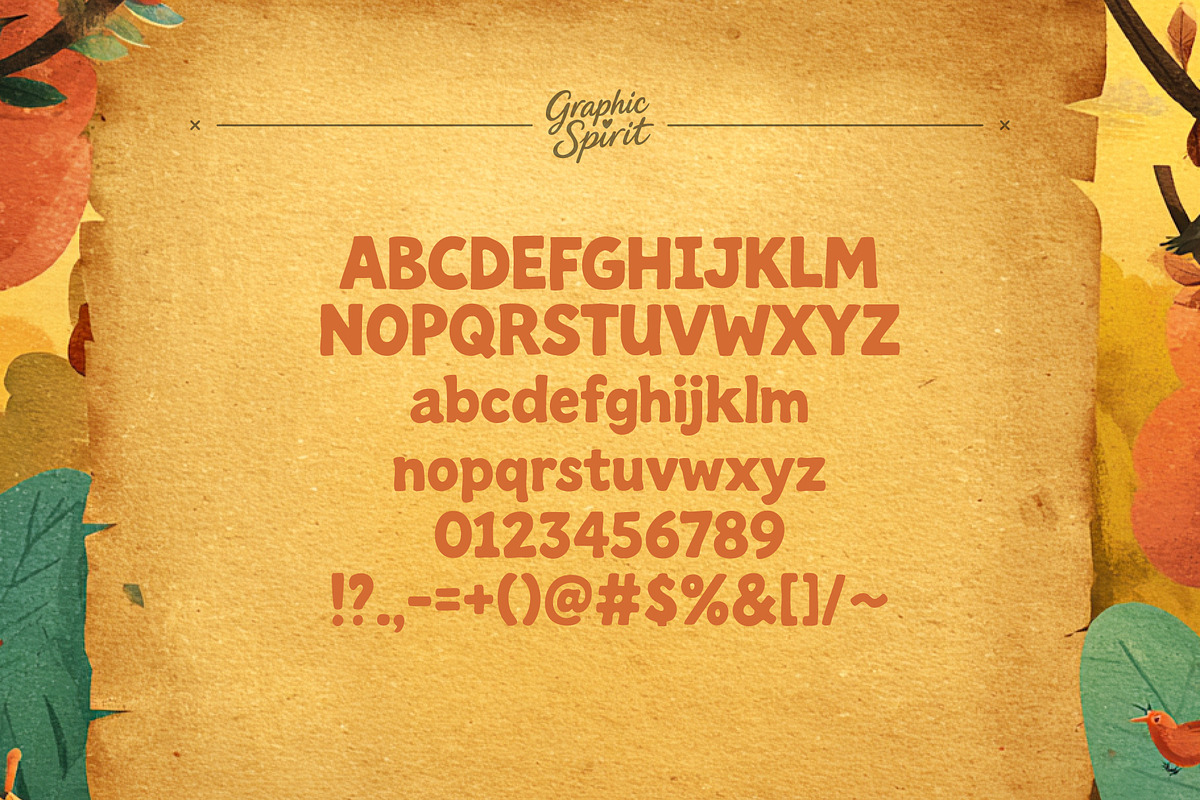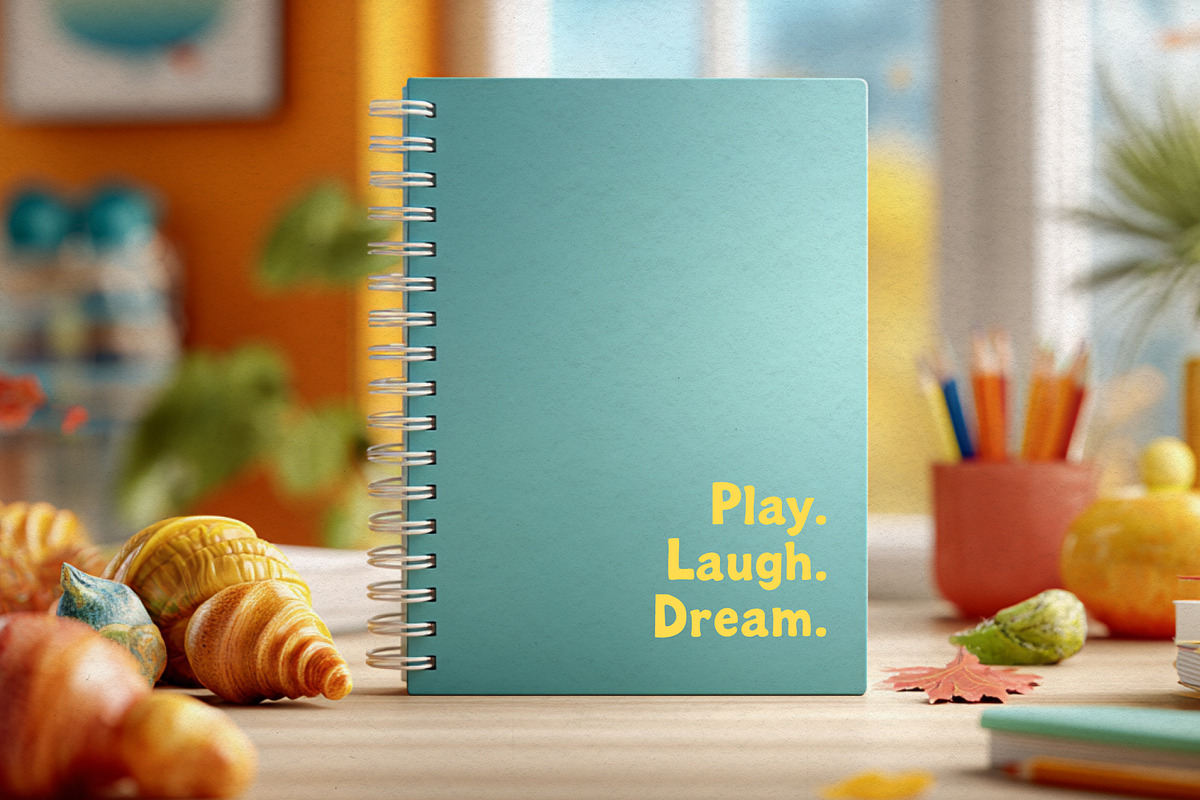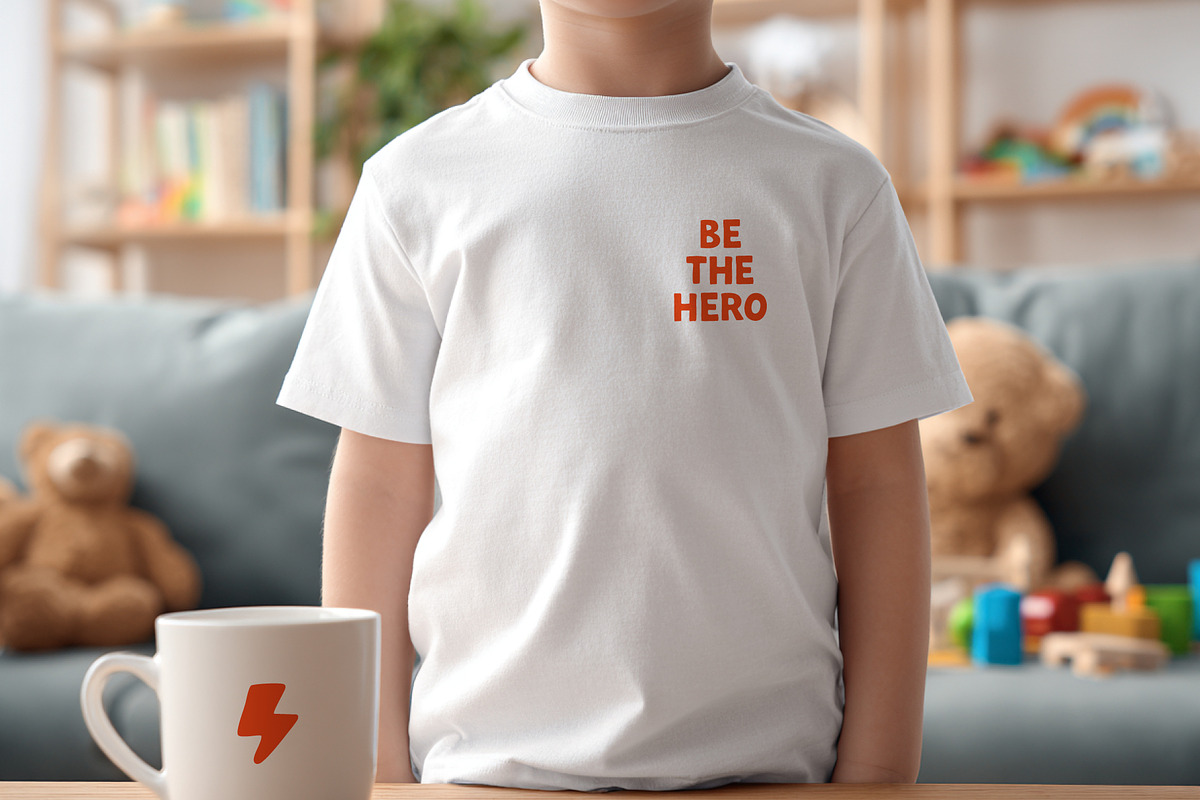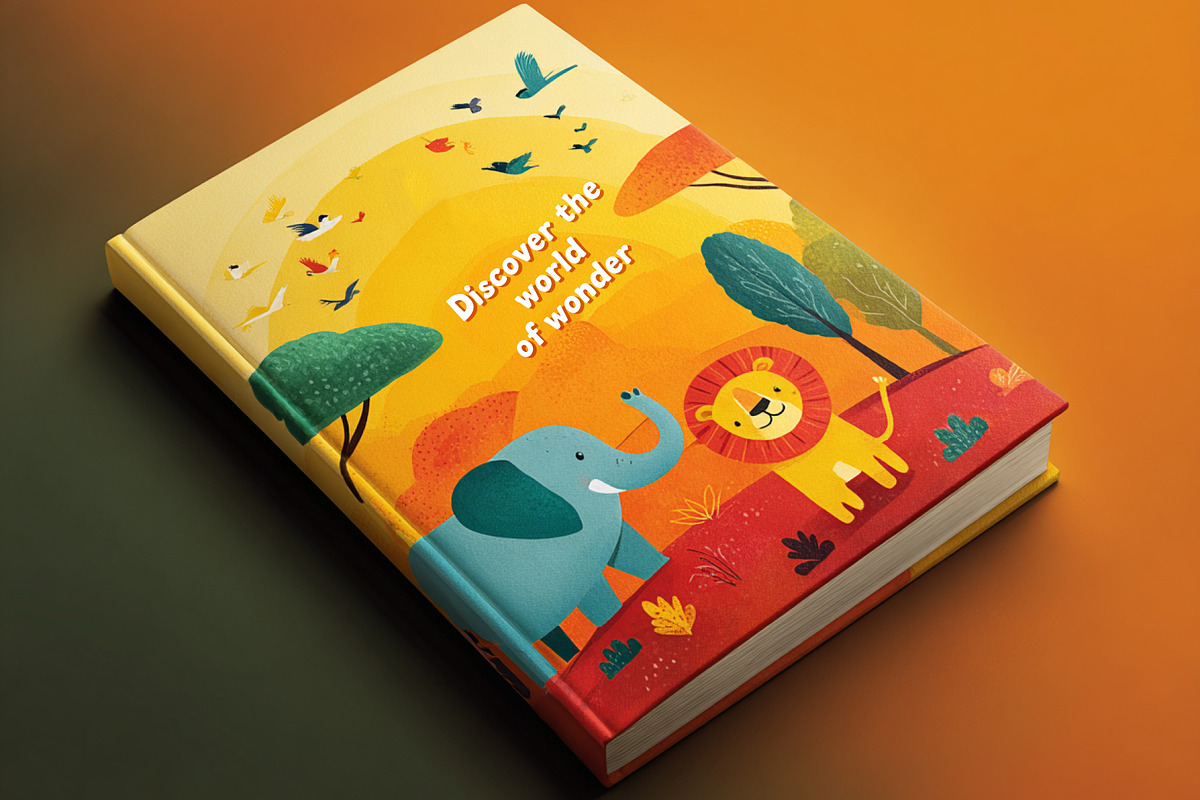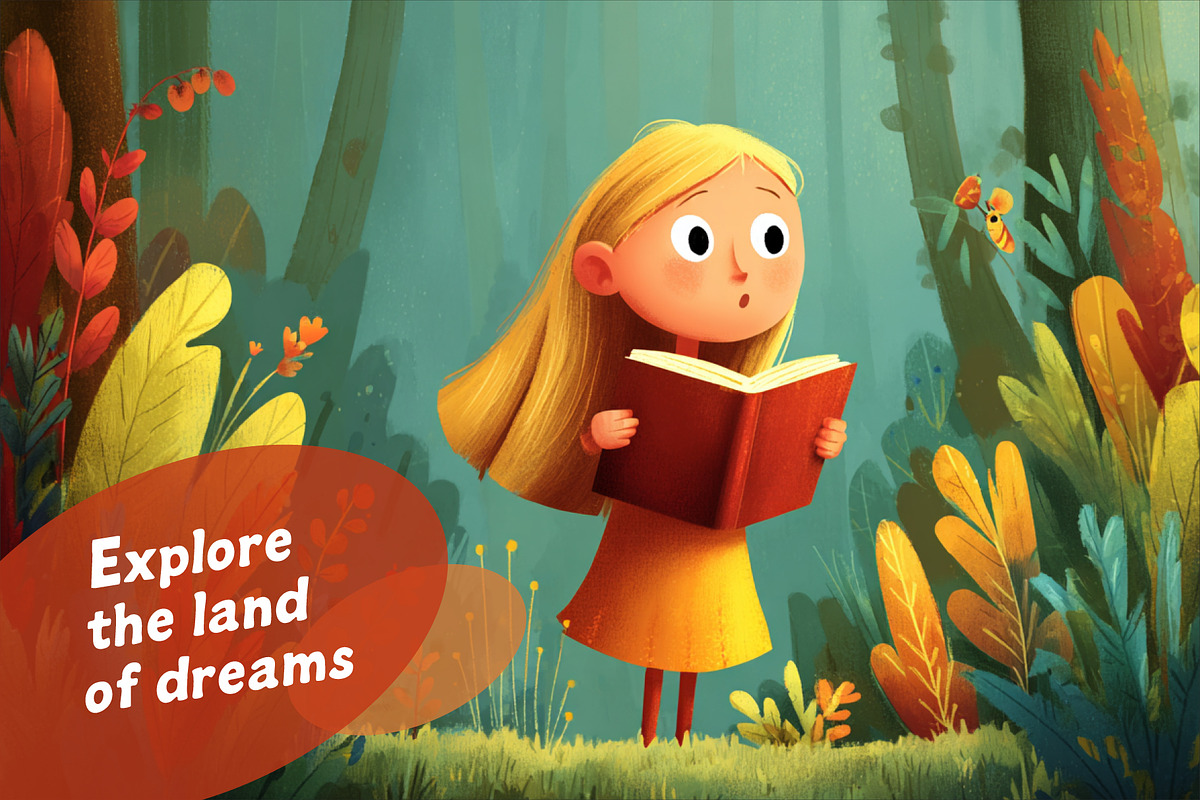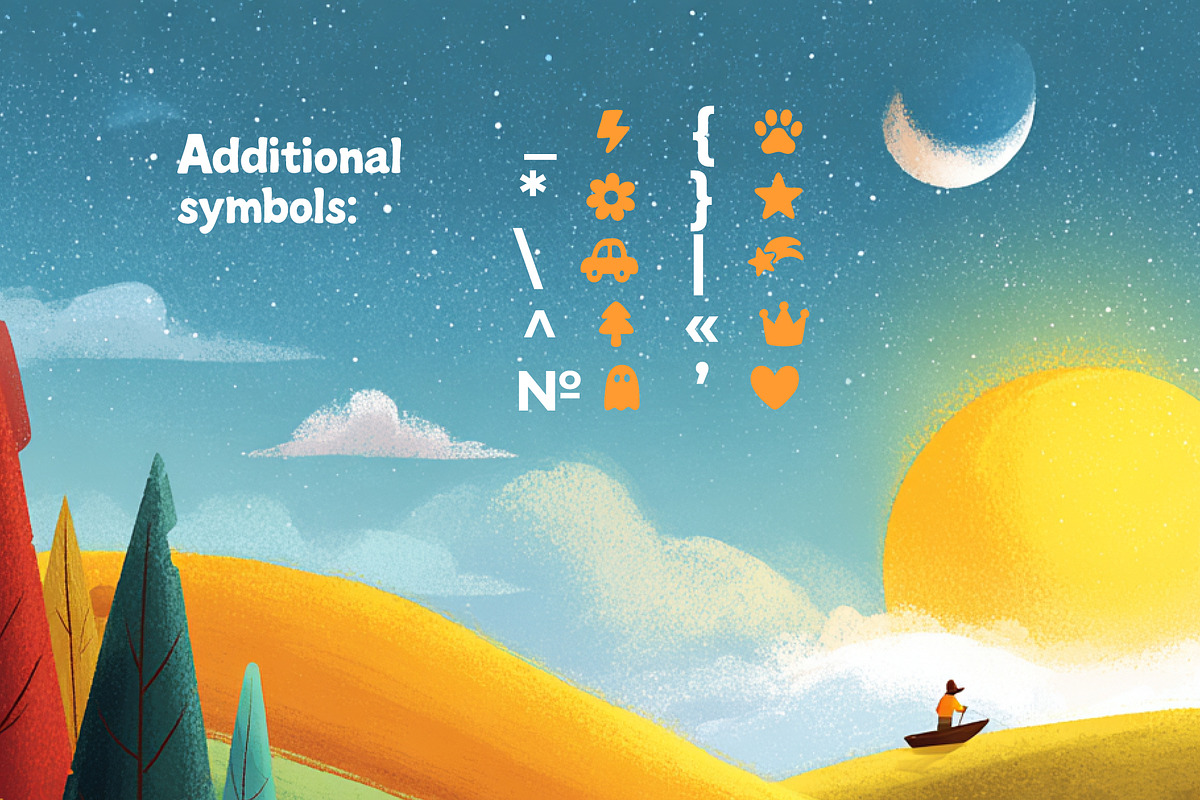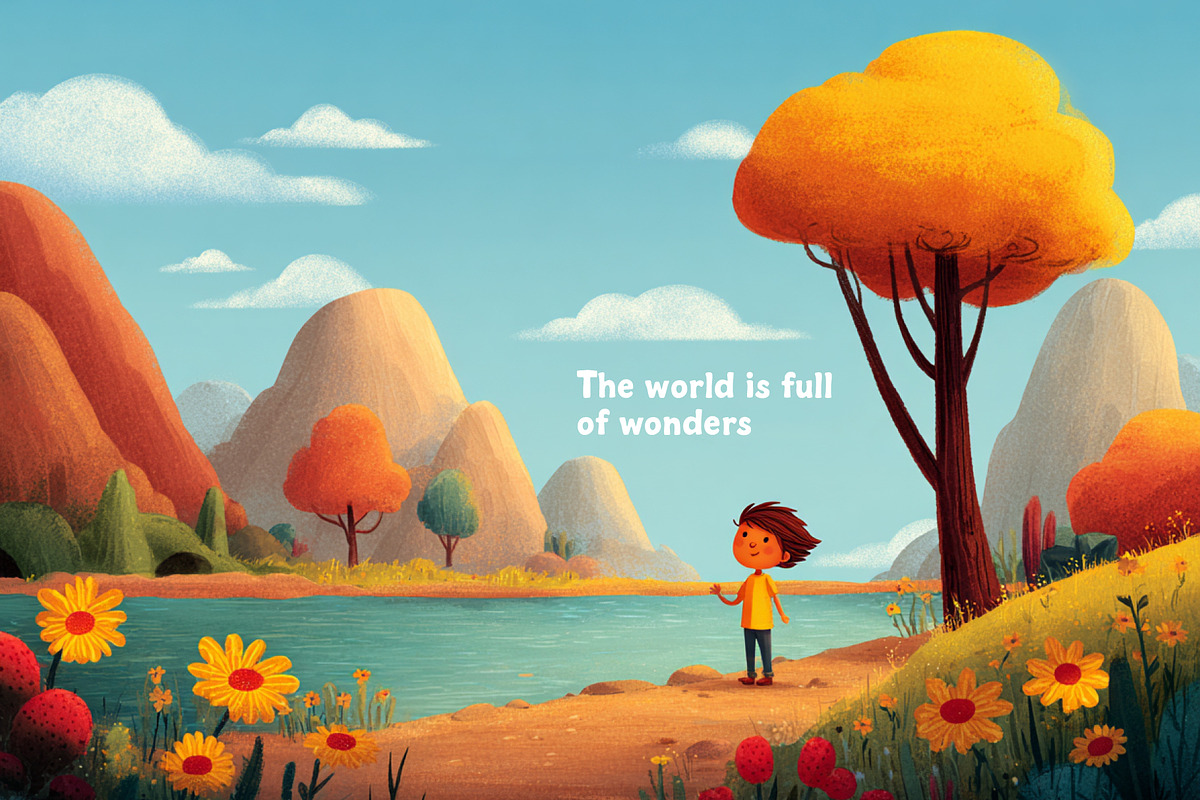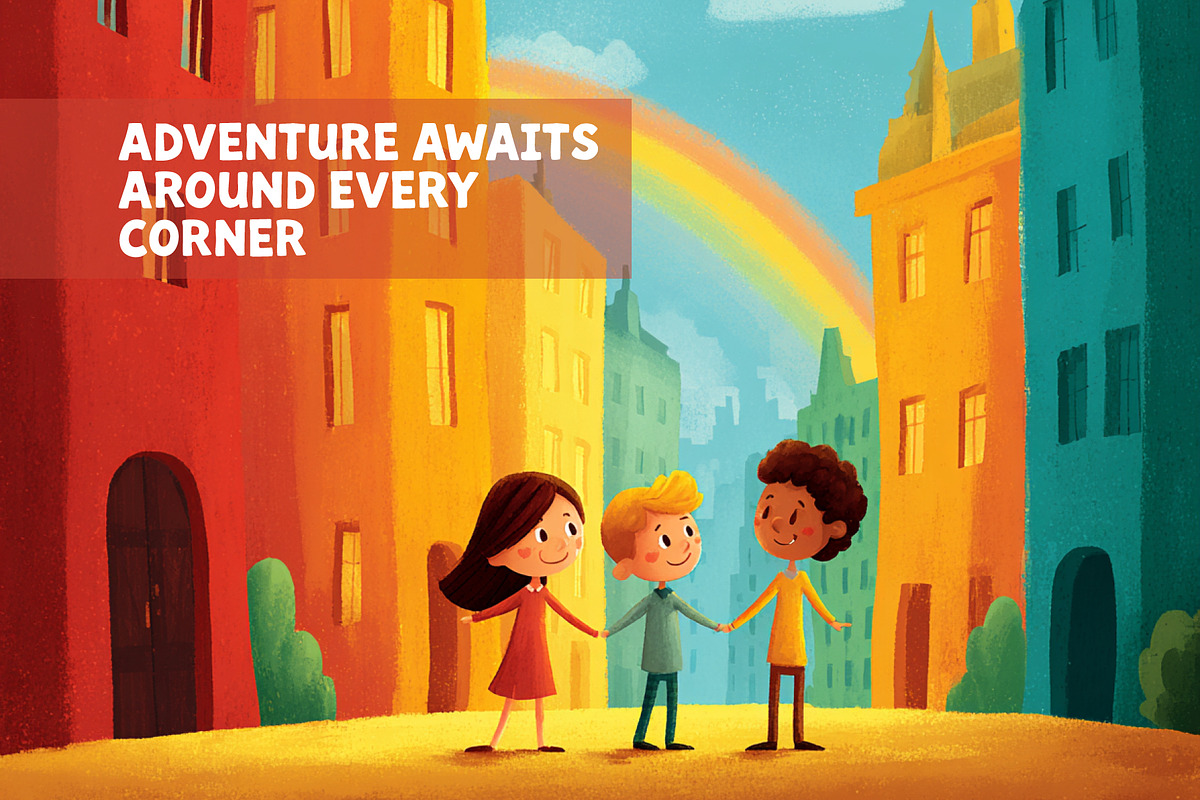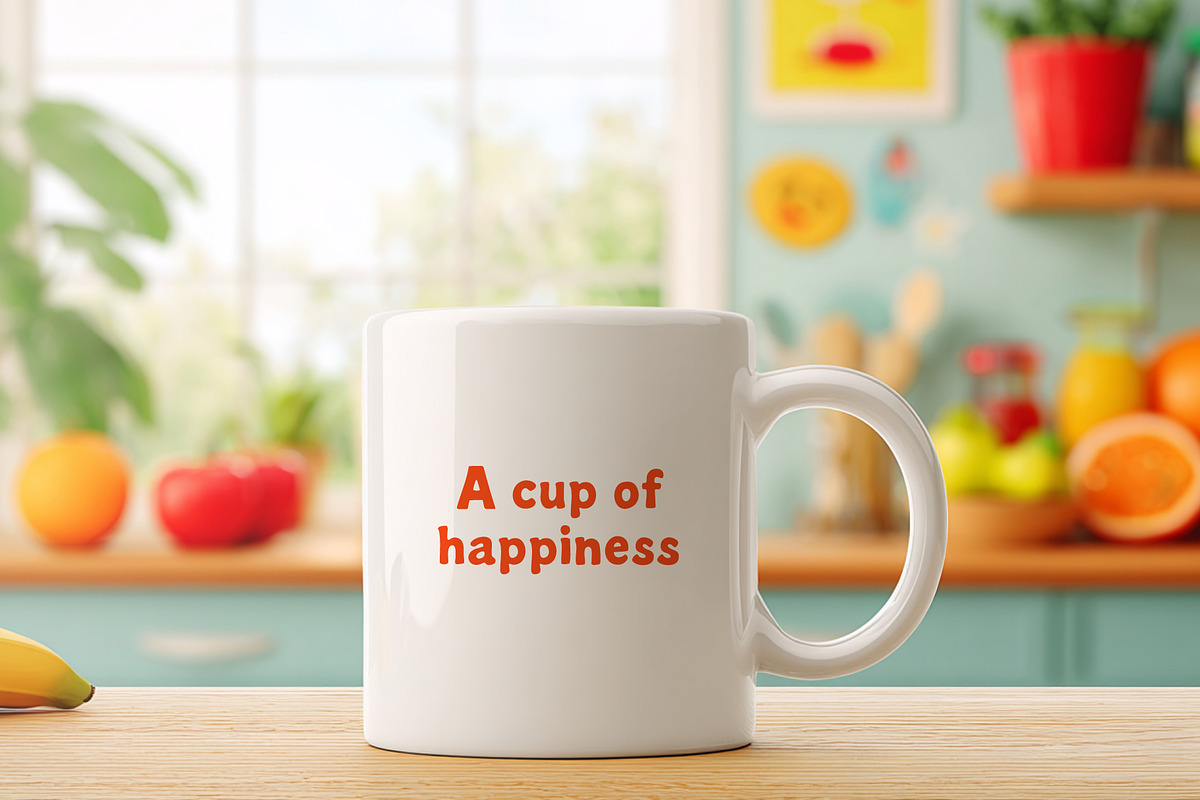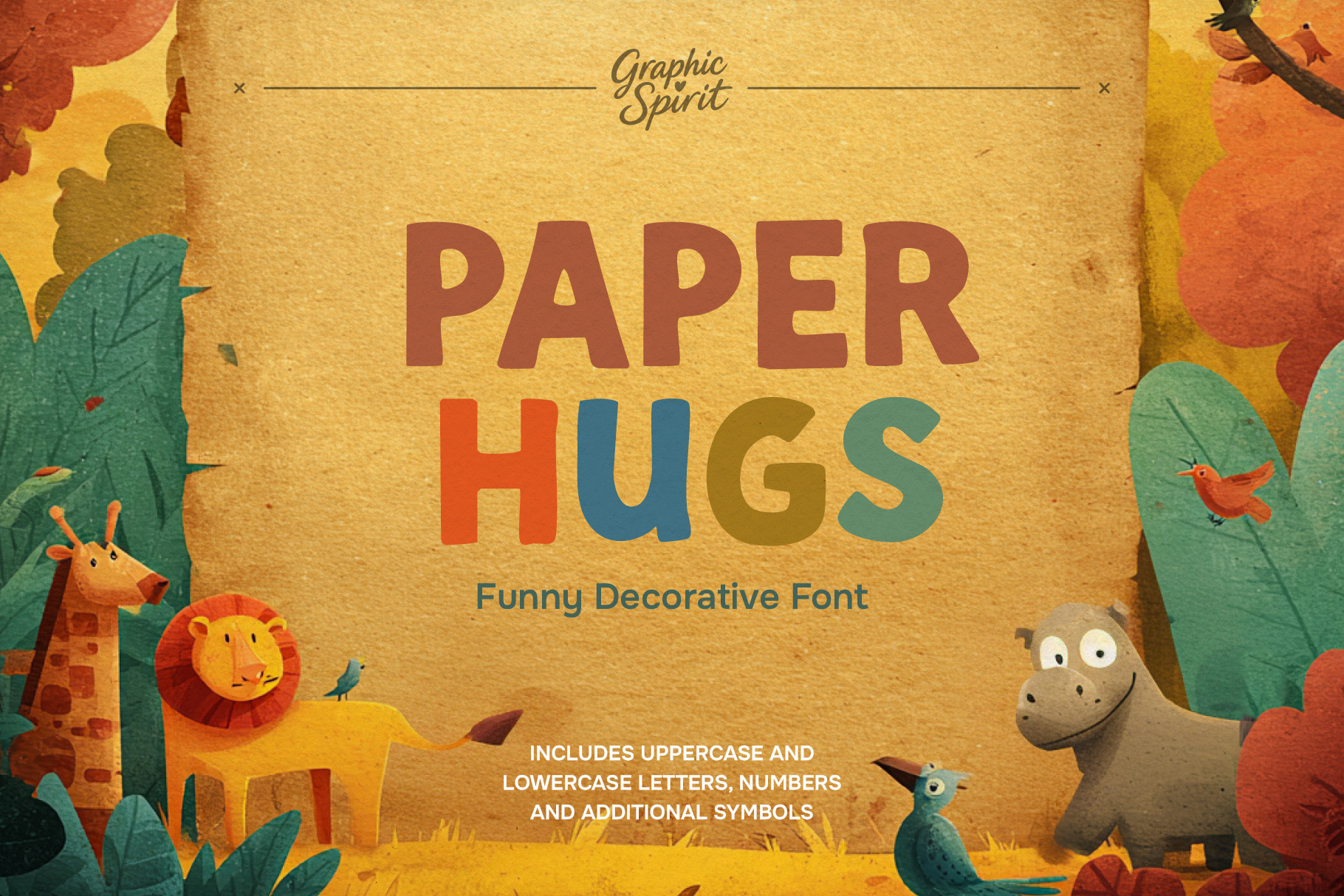
Paper Hugs Funny Decorative Font
🤗 Download this decorative font “Paper Hugs” now to add a touch of heartfelt humor and playfulness to all your creative projects! This friendly font is perfect for creating warm, personal and truly fun designs.
Perfect for creating anything from memorable greeting cards and inspiring wall hangings to quirky logos and heartwarming social media posts. This unique font is available in OTF format, which ensures easy compatibility with most design programs. Share a sweet and warm message with your creations! 🎨❤️